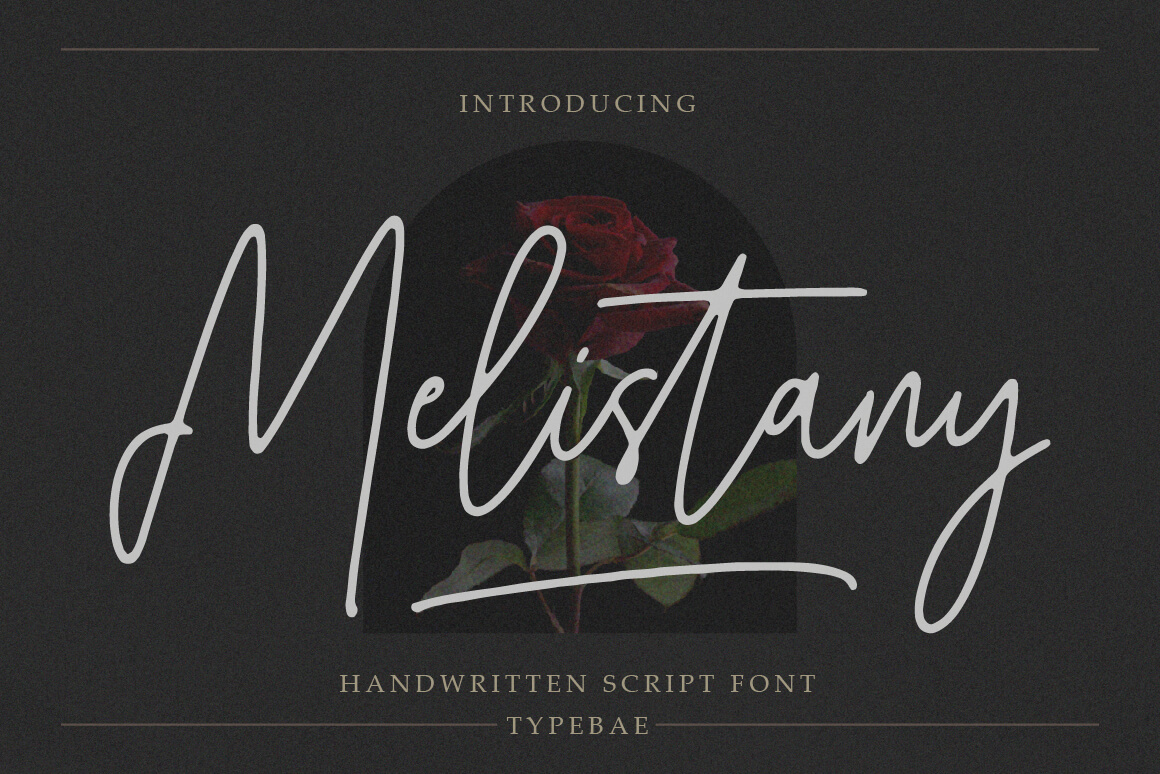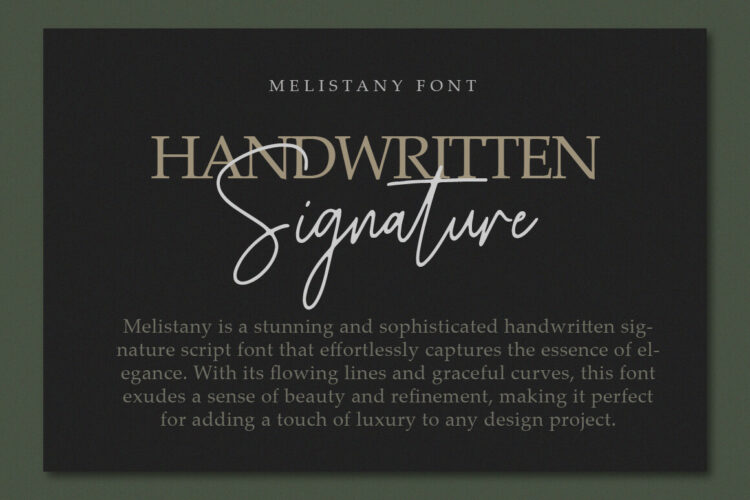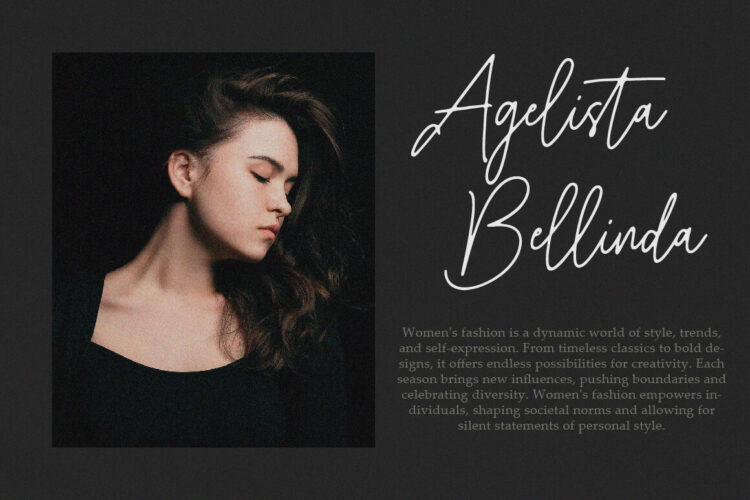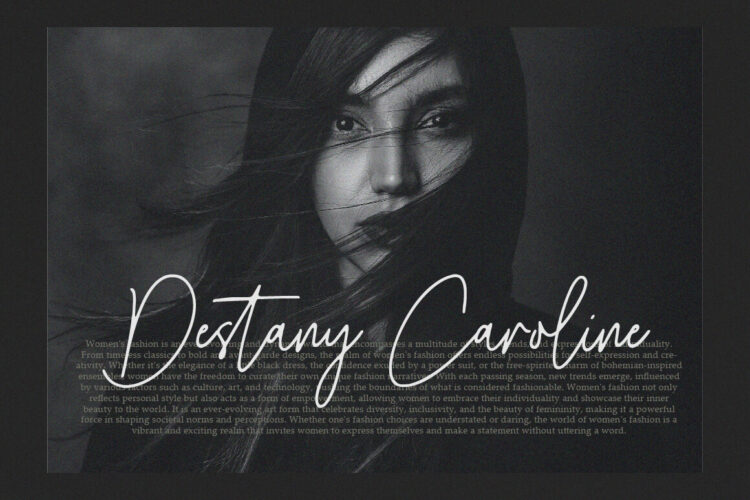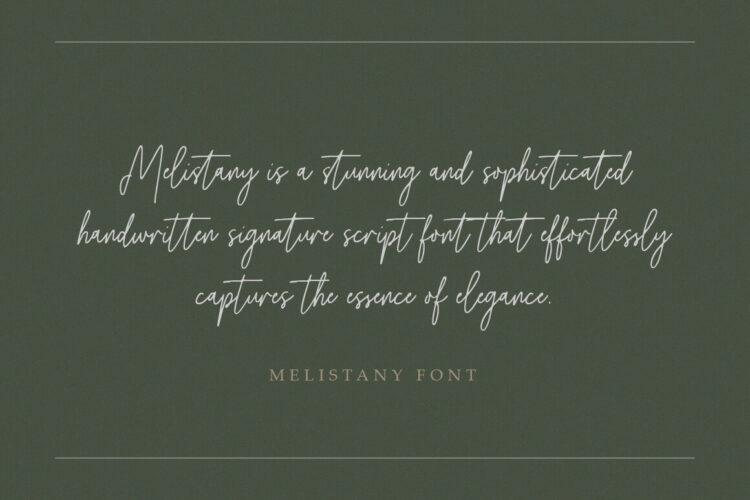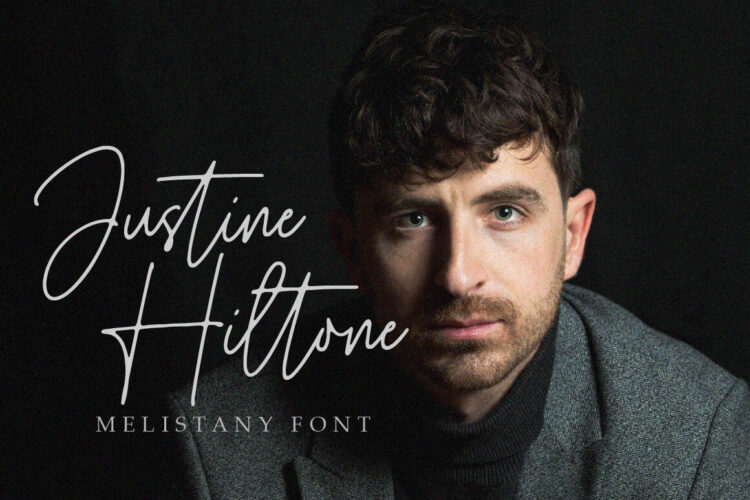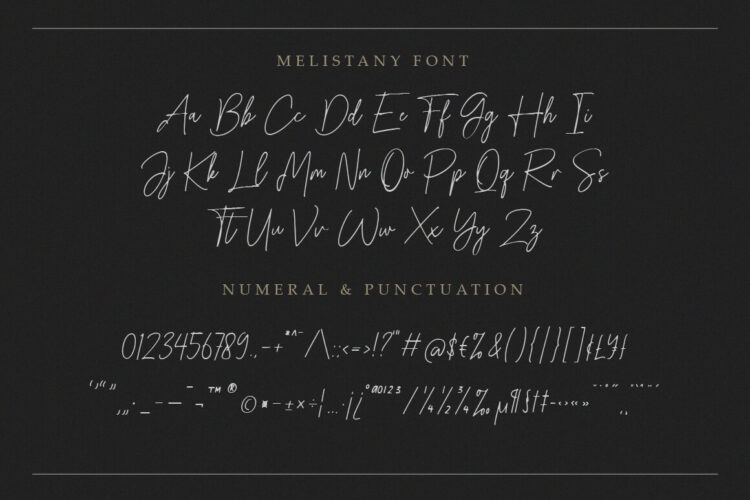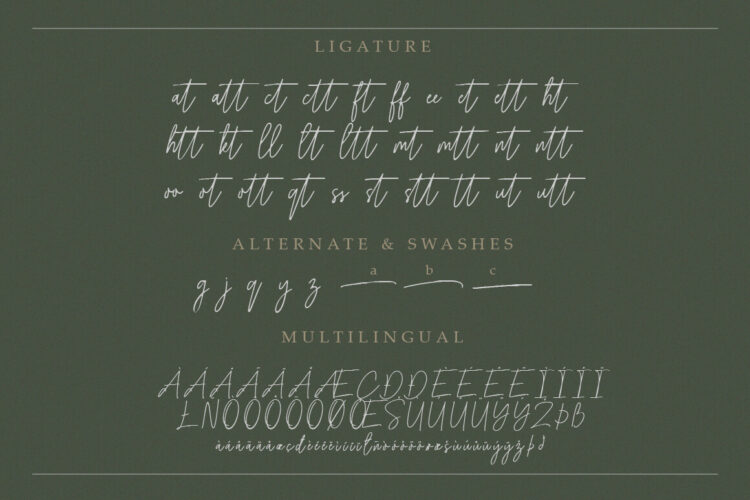
Handwritten Script Font
Melistany
Melistany is a stunning and sophisticated handwritten signature script font that effortlessly captures the essence of elegance. With its flowing lines and graceful curves, this font exudes a sense of beauty and refinement, making it perfect for adding a touch of luxury to any design project.
• Full alphabet and punctuation
• Alternate, Ligature & Swashes
• Multilingual Support